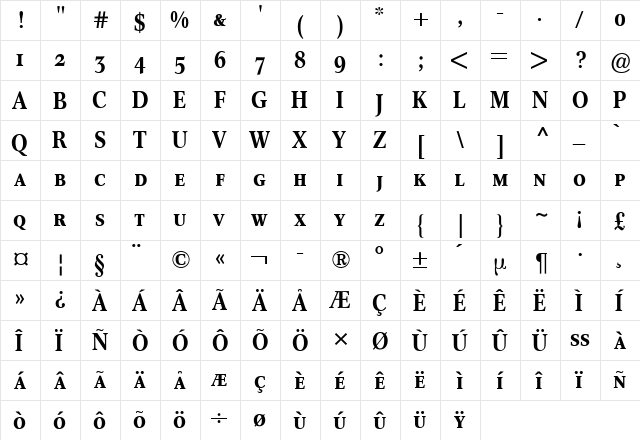
Concorde Nova Expert BQ Medium
Concorde Nova Expert BQ is a composed and adaptable typeface that performs quietly and consistently across a wide range of design contexts.